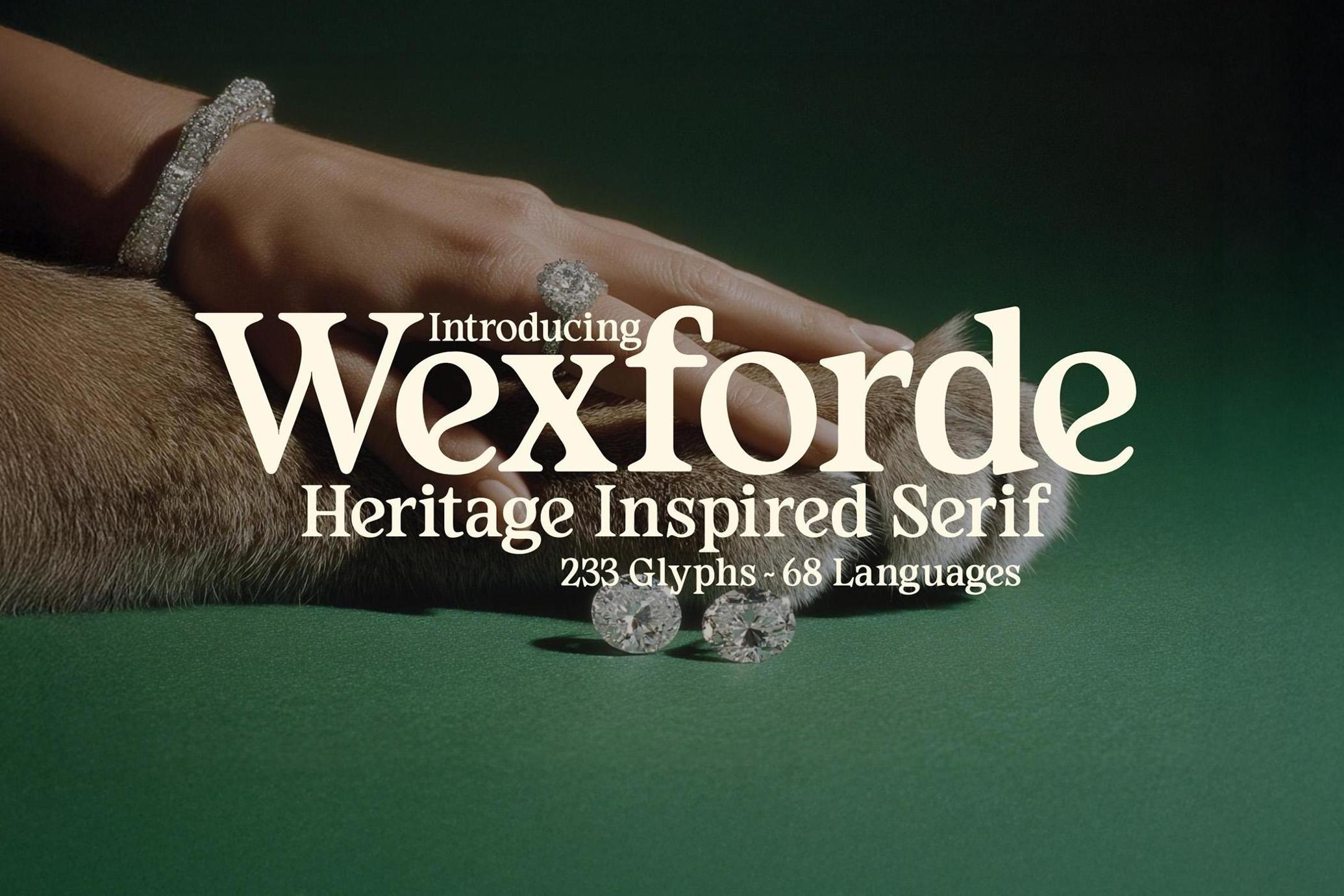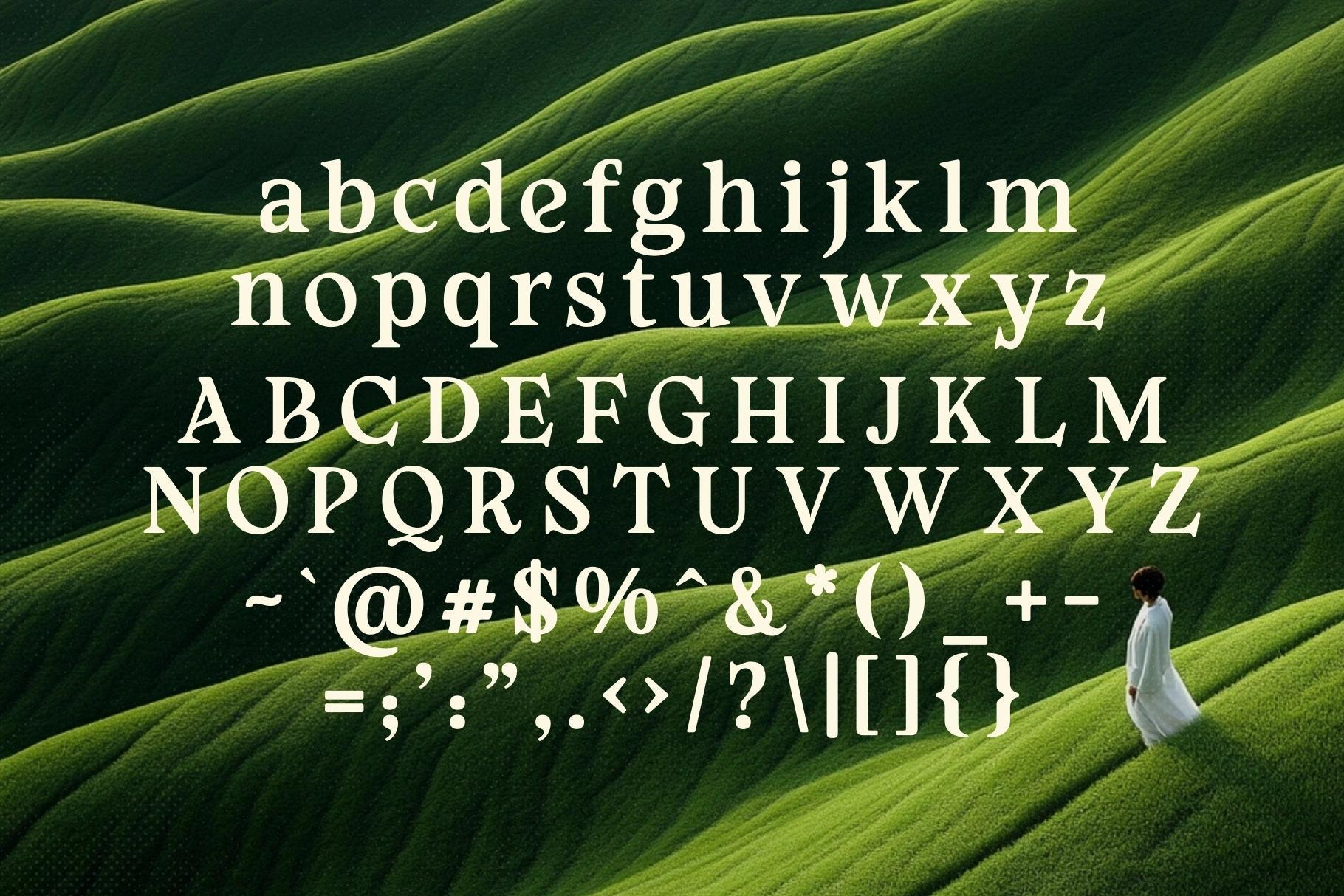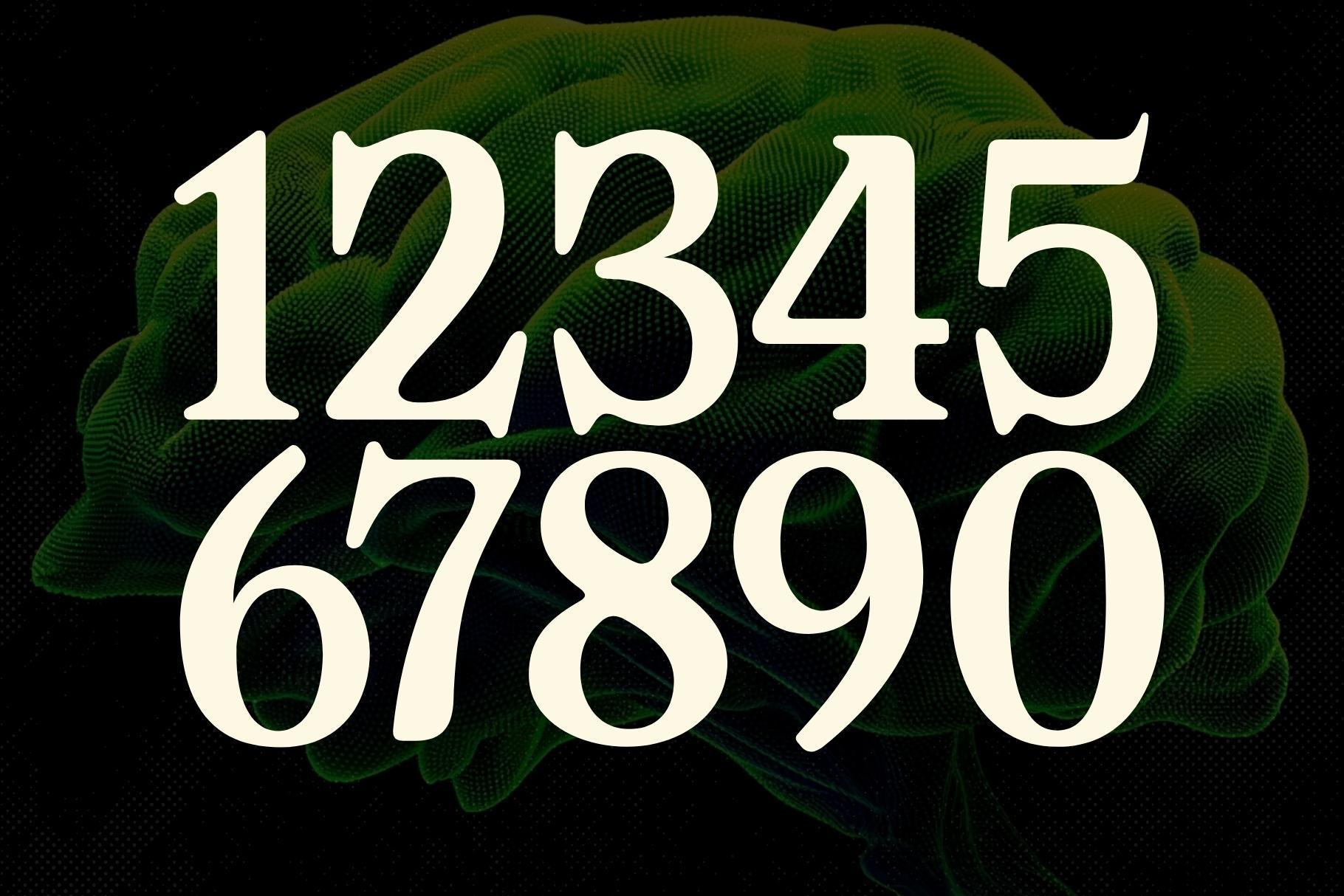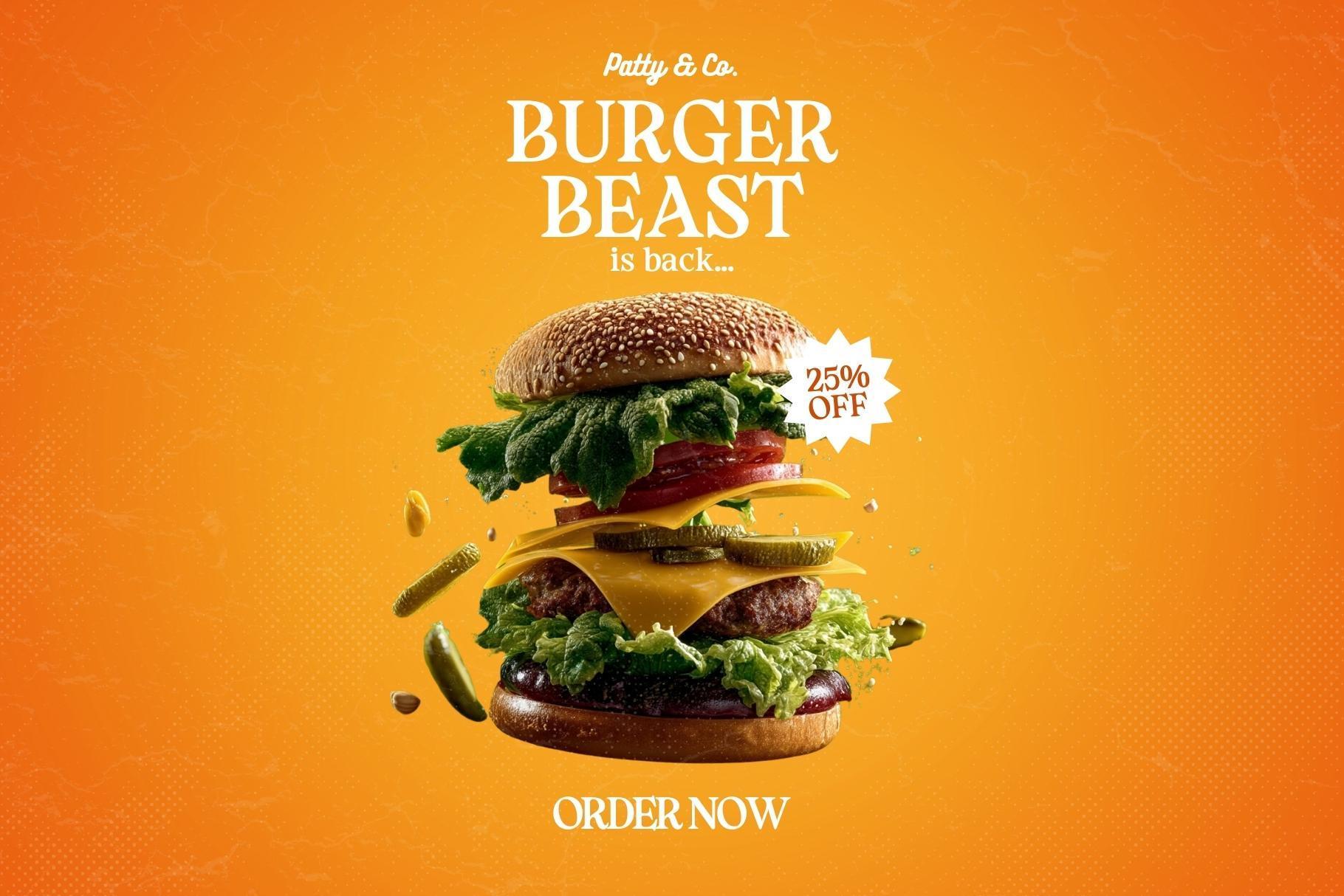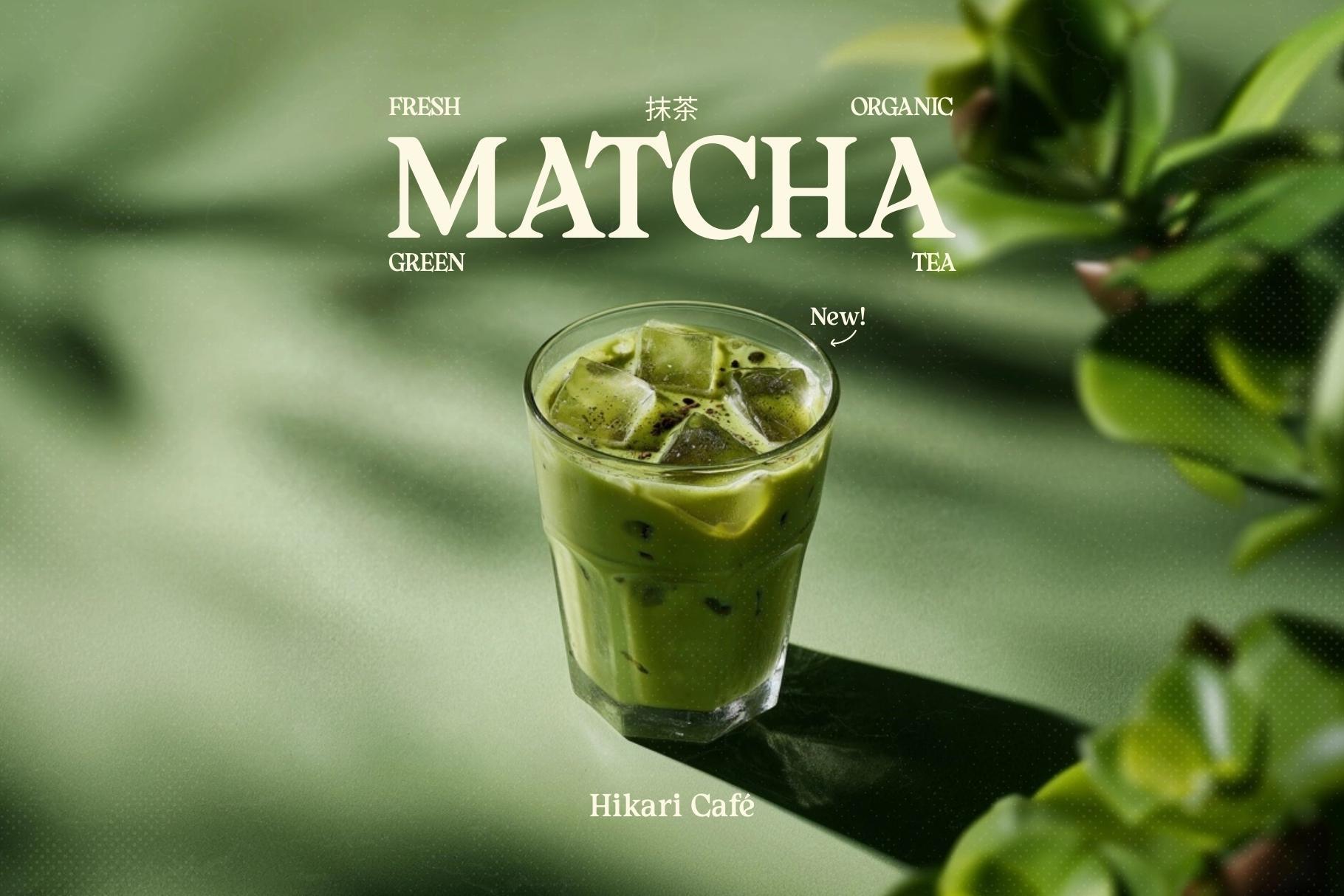
Wexforde - Soft Vintage Serif Typeface
Discover Wexforde, the soft-rounded serif typeface that effortlessly blends heritage with contemporary elegance. Inspired by the timeless charm of the 1960s–1980s, Wexforde radiates nostalgia while maintaining a polished, modern sophistication. Every curve and stroke has been carefully crafted to give your designs a warm, approachable, yet refined character.
Perfect for logos, branding, advertising, editorial design, packaging, and more, Wexforde transforms ordinary projects into unforgettable visual experiences. Its rounded serifs and nostalgic flair make it ideal for designers seeking a typeface that speaks of heritage, style, and personality. Whether you’re creating a chic boutique brand, a retro-inspired campaign, or high-end editorial layouts, Wexforde delivers timeless elegance and standout presence in every letter.